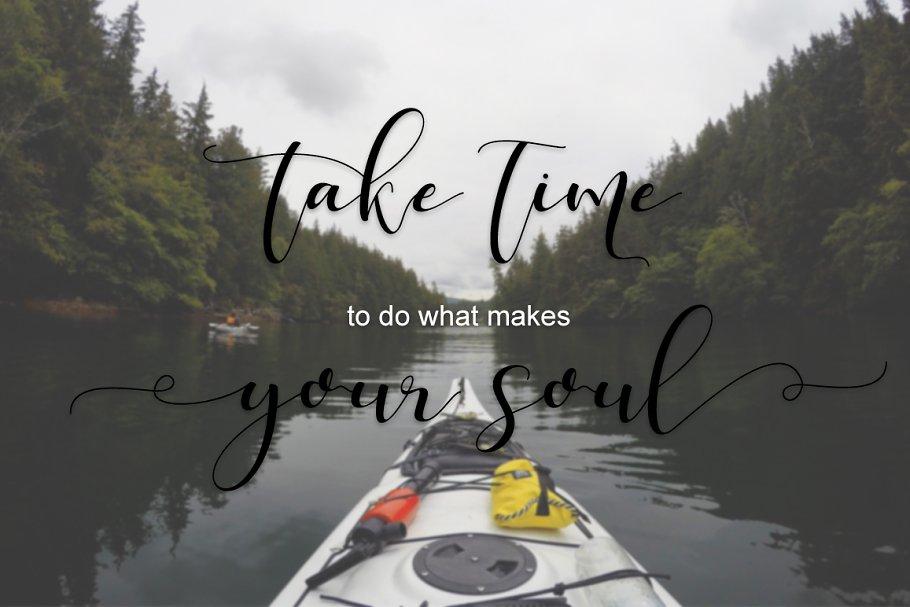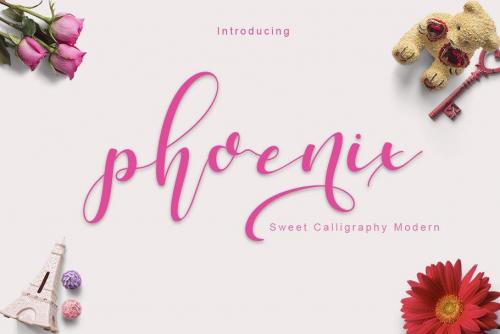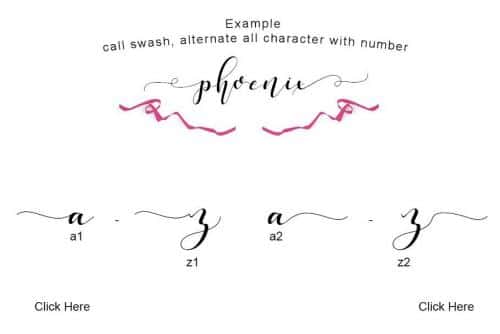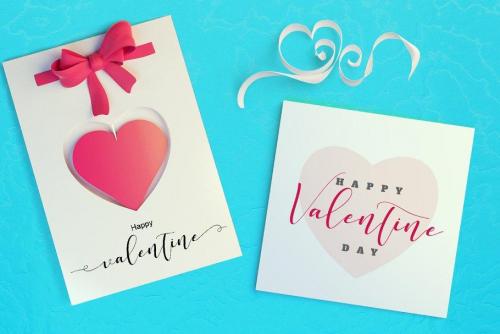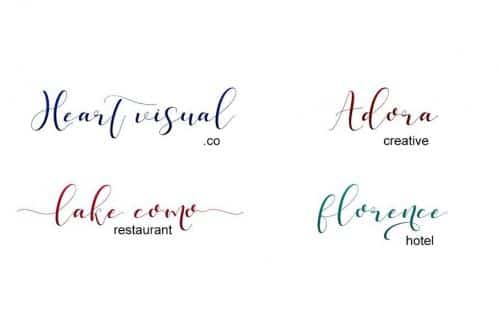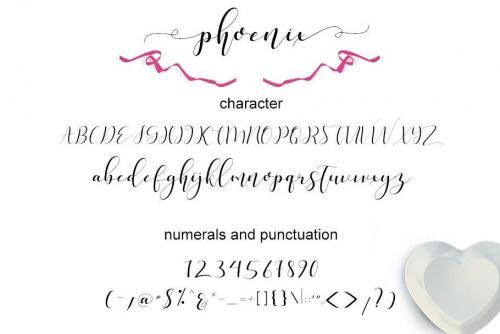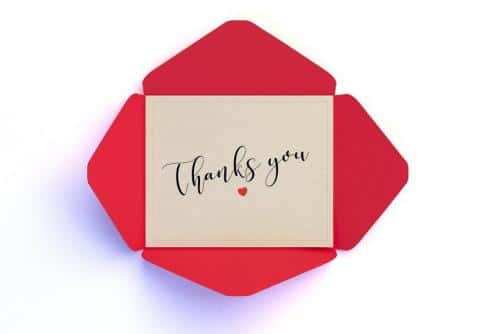
Phoenix Sweet Calligraphy Font
Phoenix a sweet calligraphy modern script style, decorative characters and a dancing baseline! So beautiful on invitation like greeting cards, branding materials, business cards, quotes, posters, and more!!
Phoenix come with 299 glyphs. The alternative characters were divided into several Open Type features such as Swash, Stylistic Sets, Stylistic Alternates. The Open Type features can be accessed by using Open Type savvy programs such as Adobe Illustrator, Adobe InDesign, Adobe Photoshop Corel Draw X version, And Microsoft Word. And this Font has given PUA unicode (specially coded fonts). so that all the alternate characters can easily be accessed in full by a craftsman or designer.